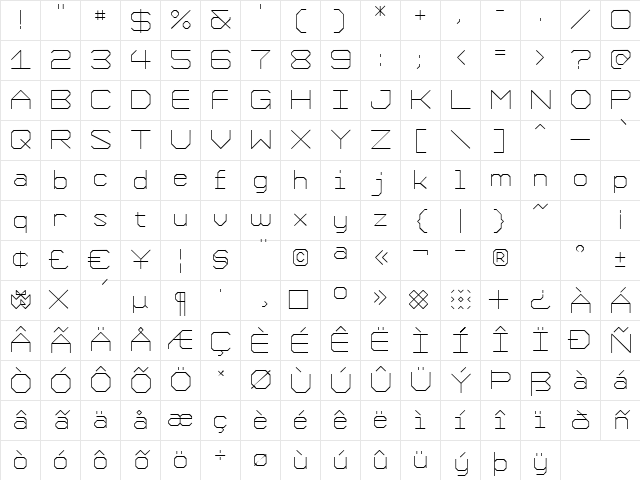
Formation UltraLight Free Font
Formation UltraLight
Style: UltraLight
Foundry: YouWorkForThem
Designer: Michael Cina
Design Context for Formation
Formation is a composed and adaptable typeface that performs quietly and consistently across a wide range of design contexts. Its slender proportions lend an understated elegance to any composition.